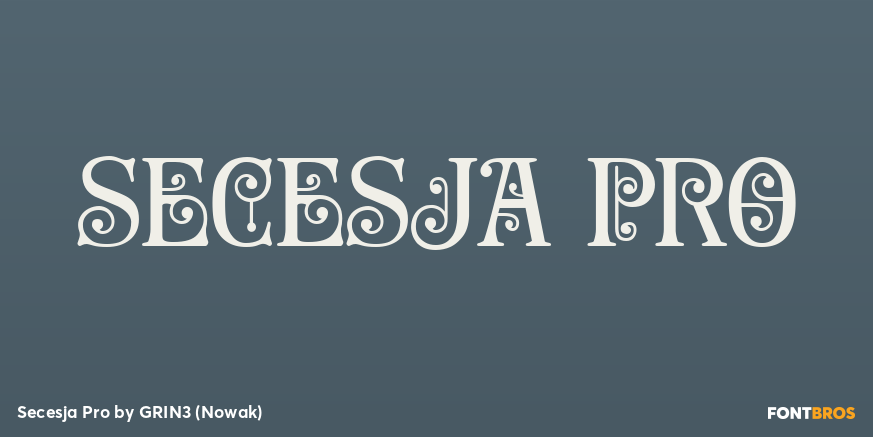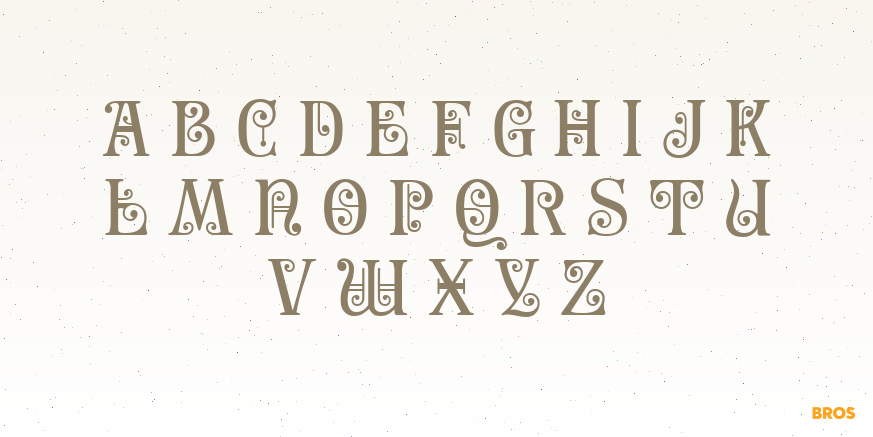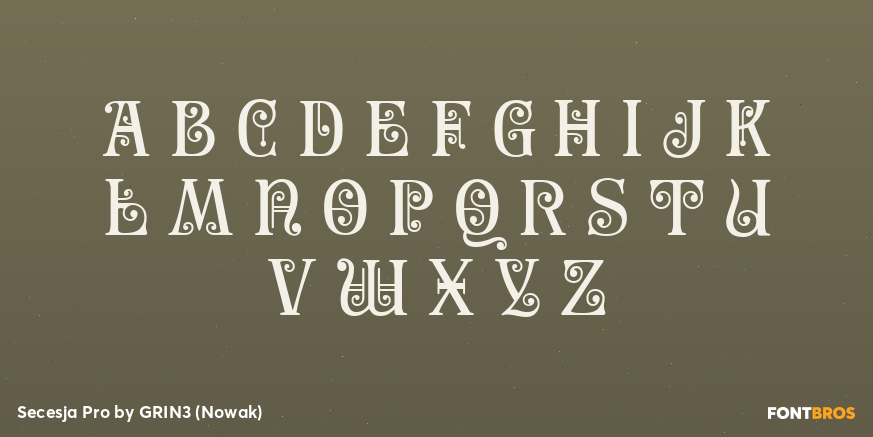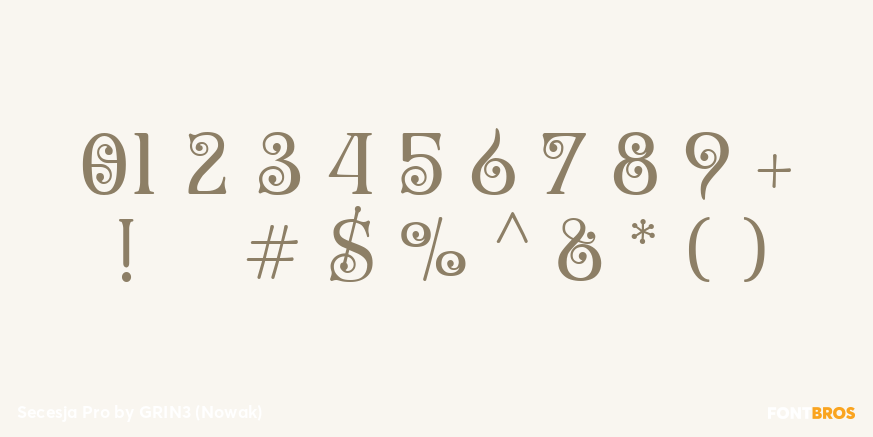
Secesja Pro
Font Family by GRIN3 (Nowak)
Secesja Pro is a new, completely redesigned and improved version of my font Secesja, which was released for the first time in 2001.
Language support includes Western, Central and Eastern European character sets, as well as Baltic and Turkish languages.